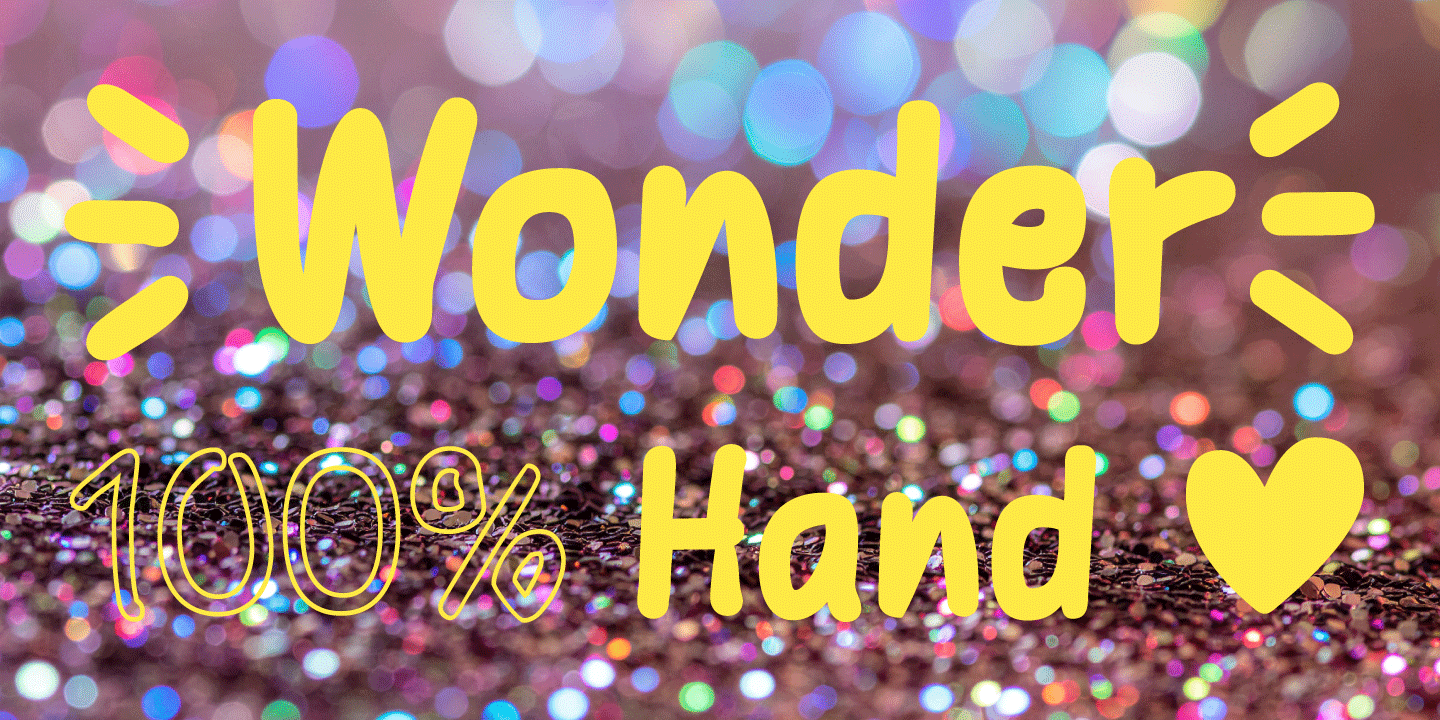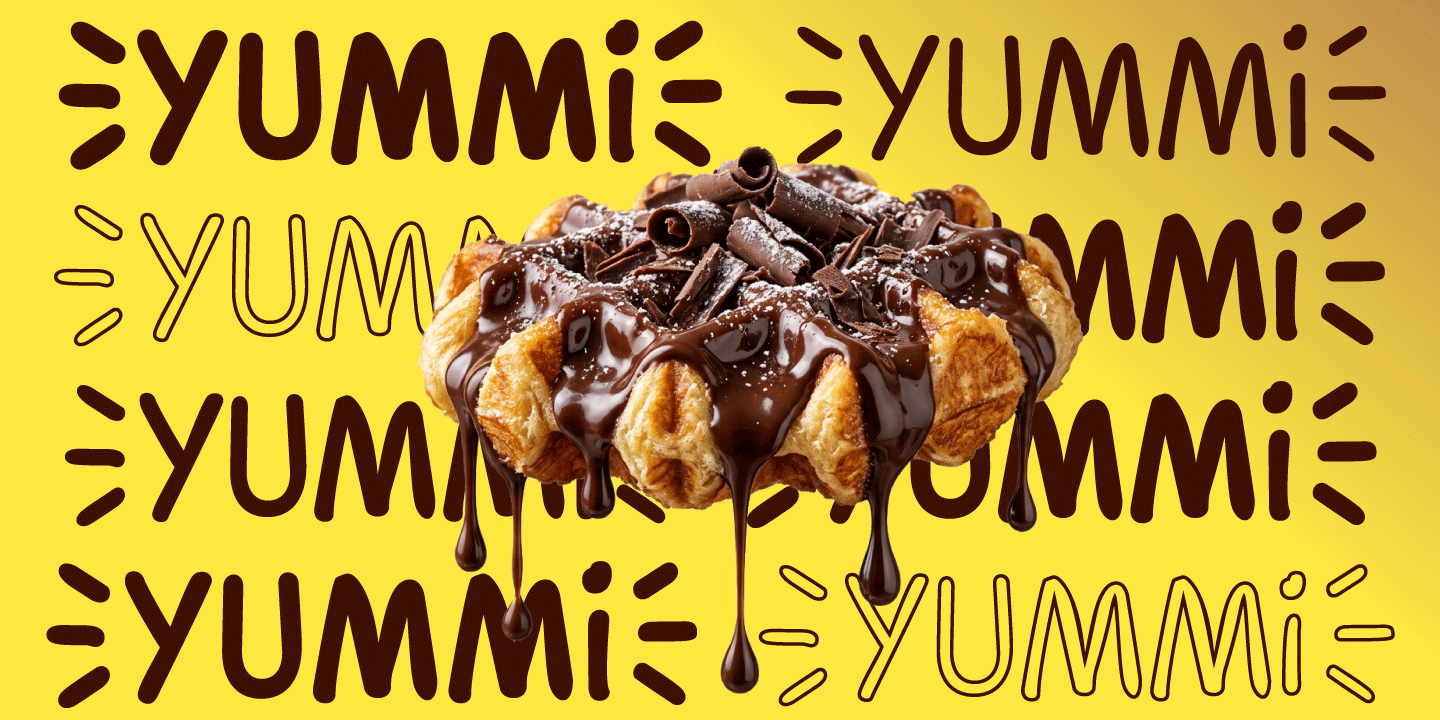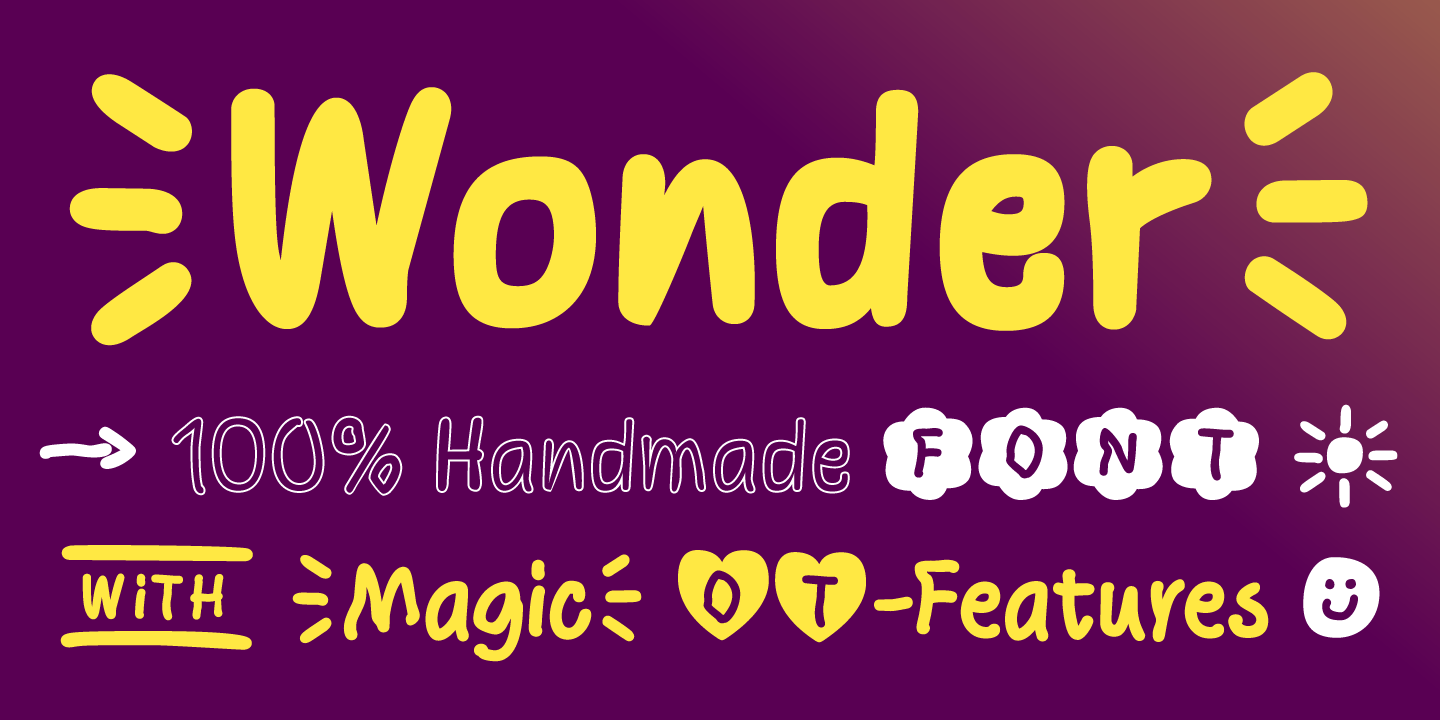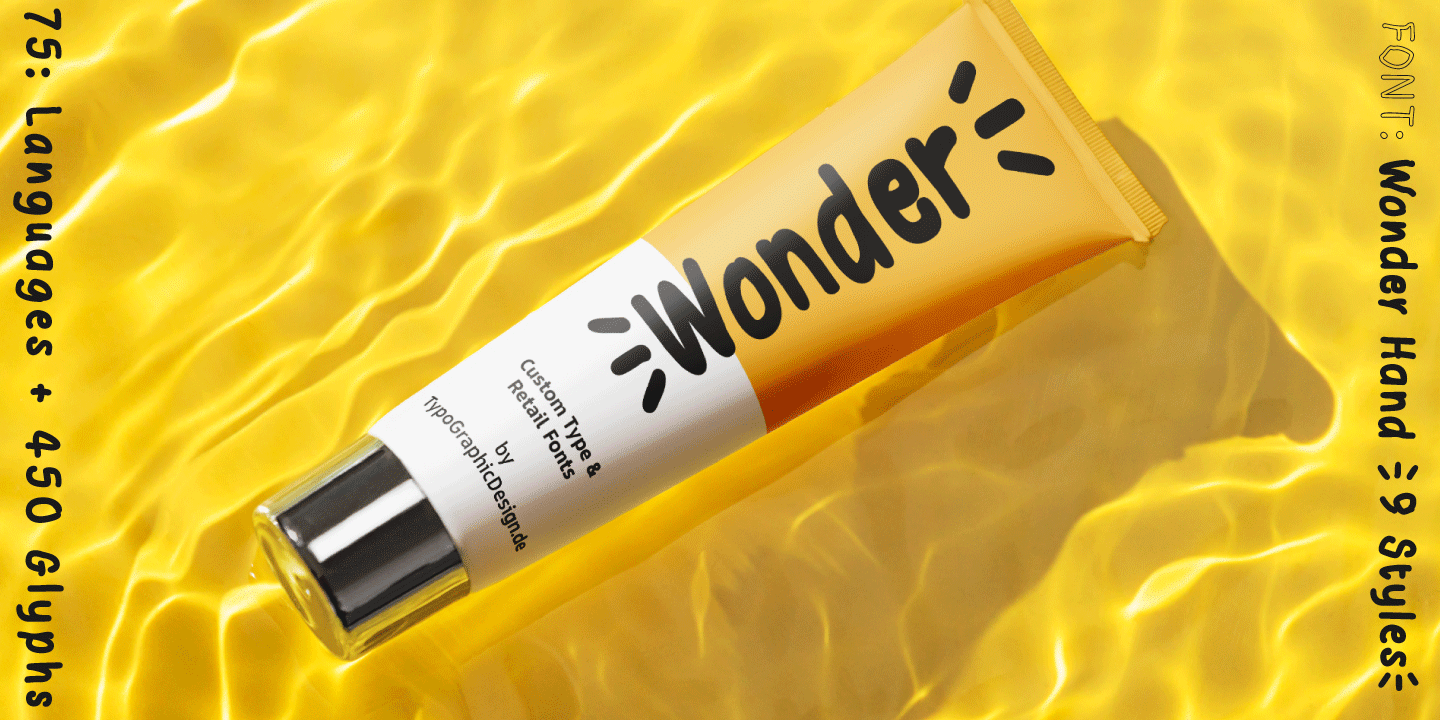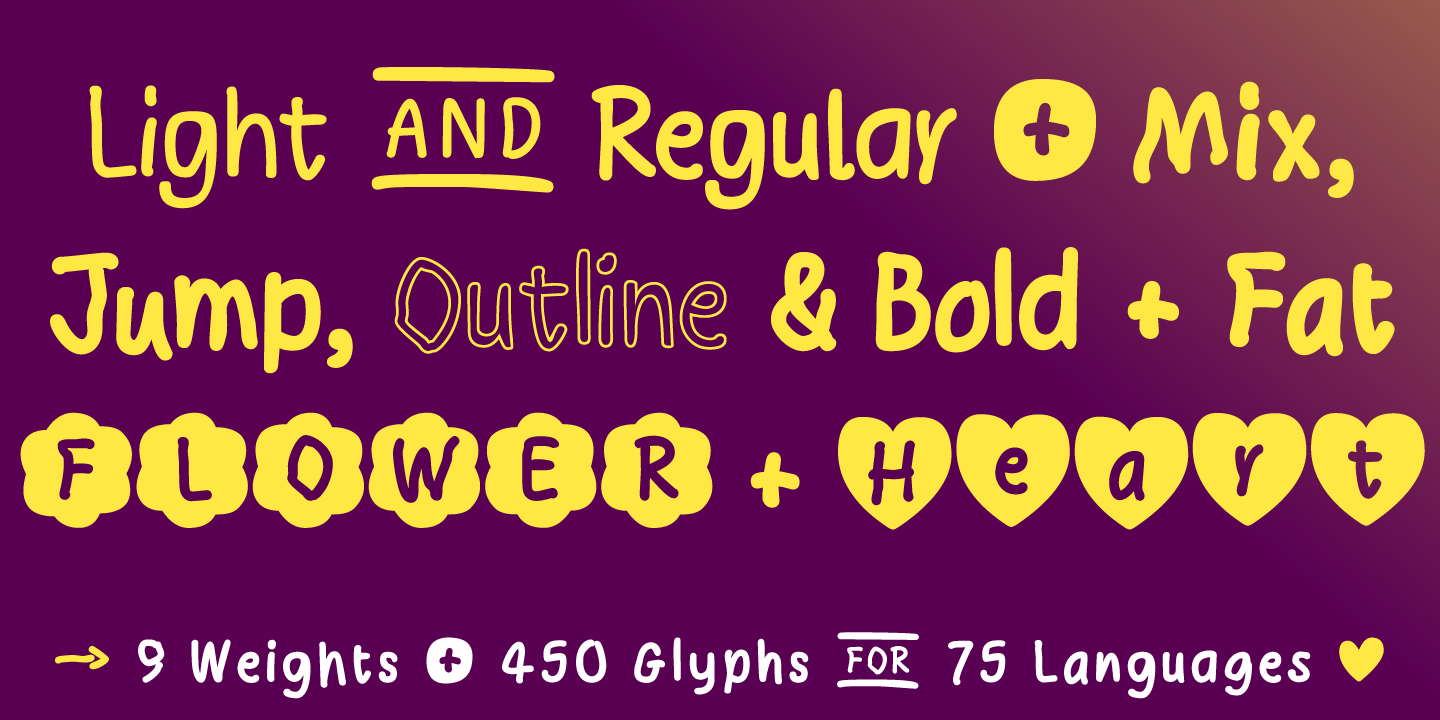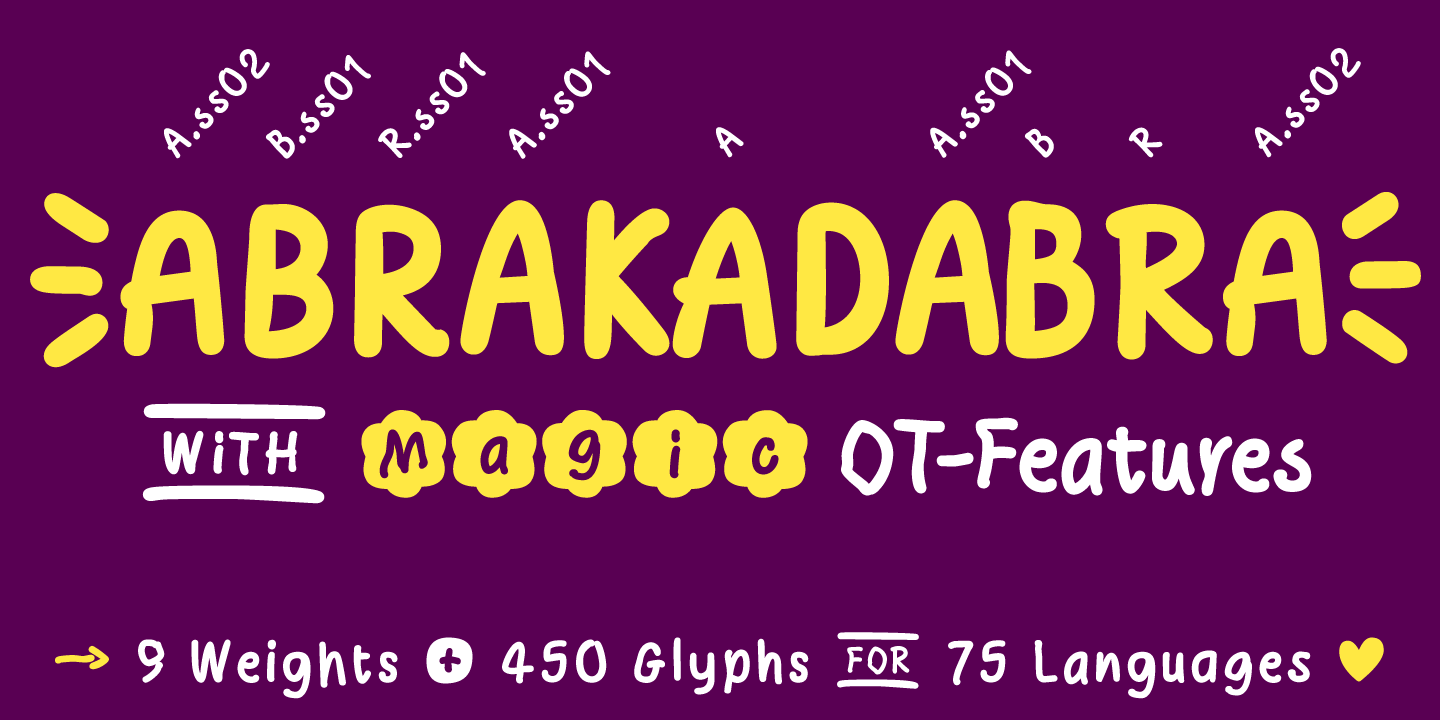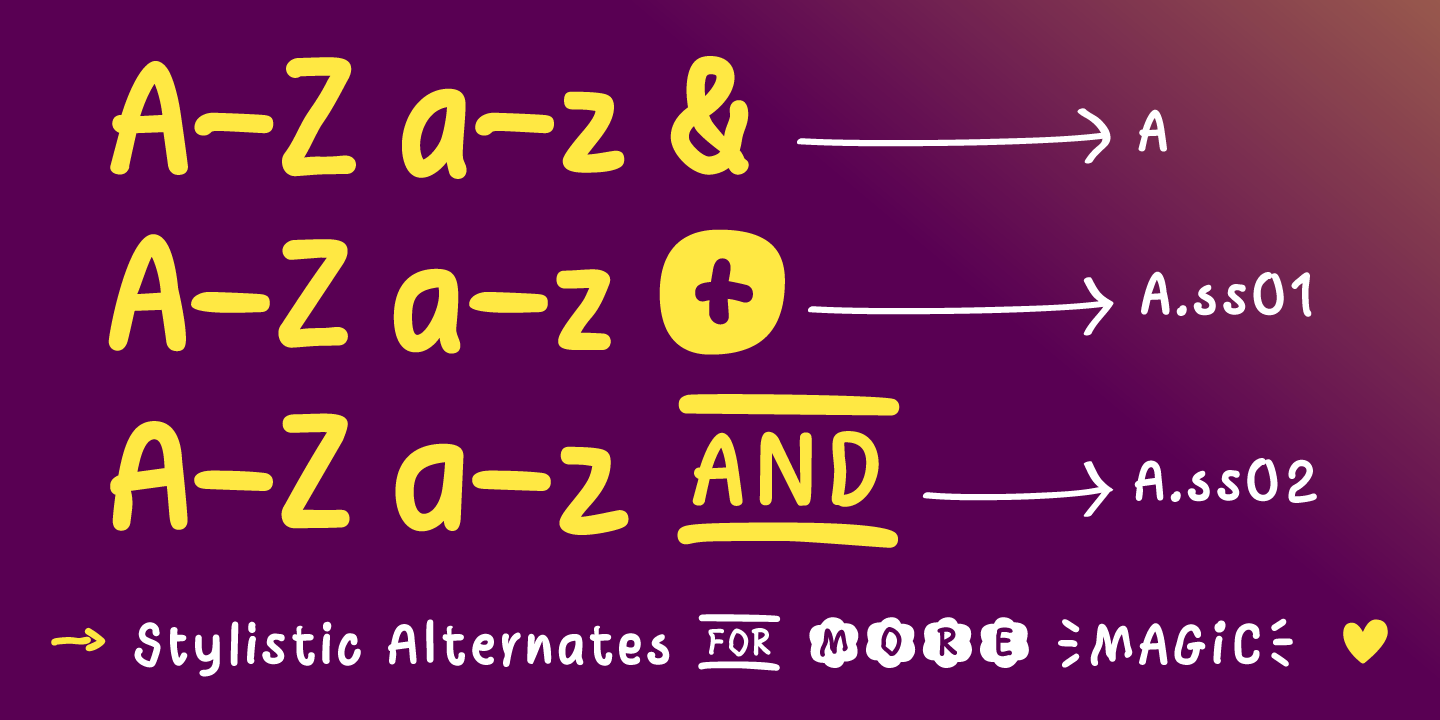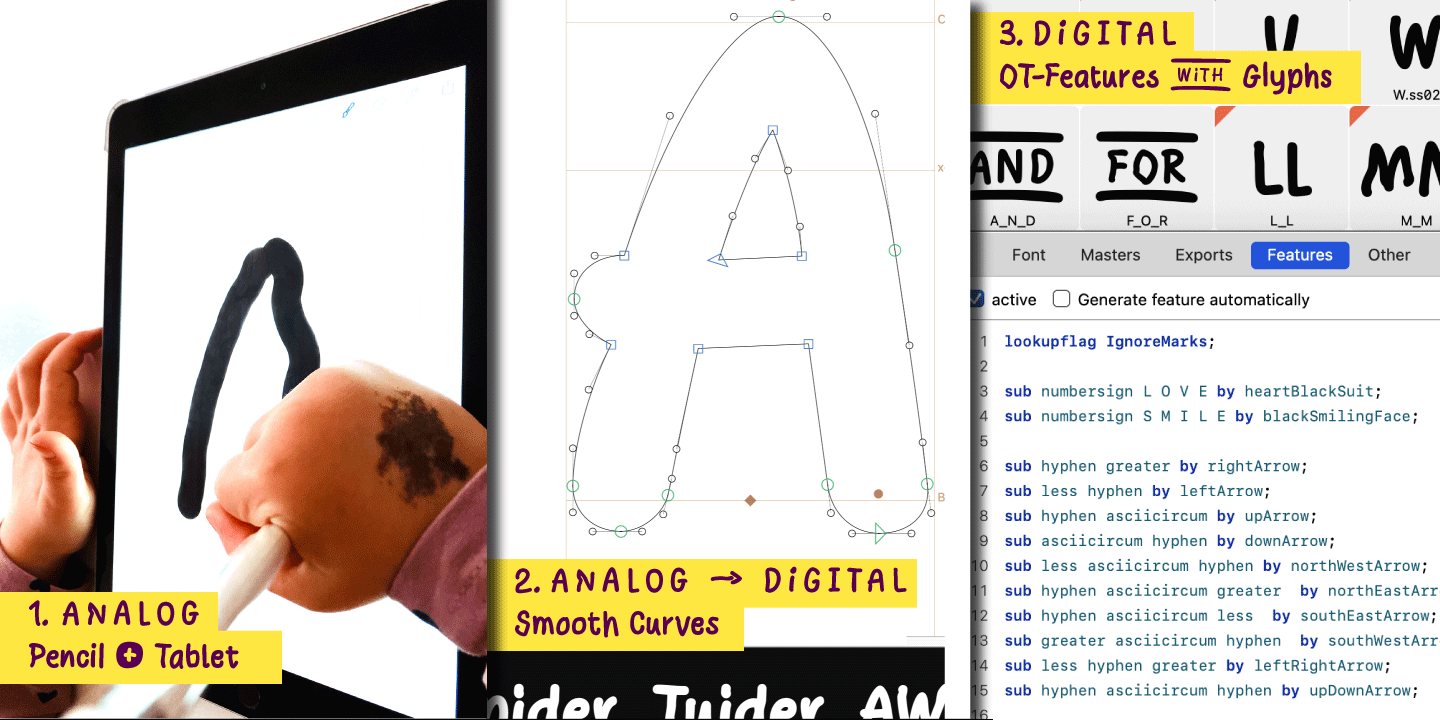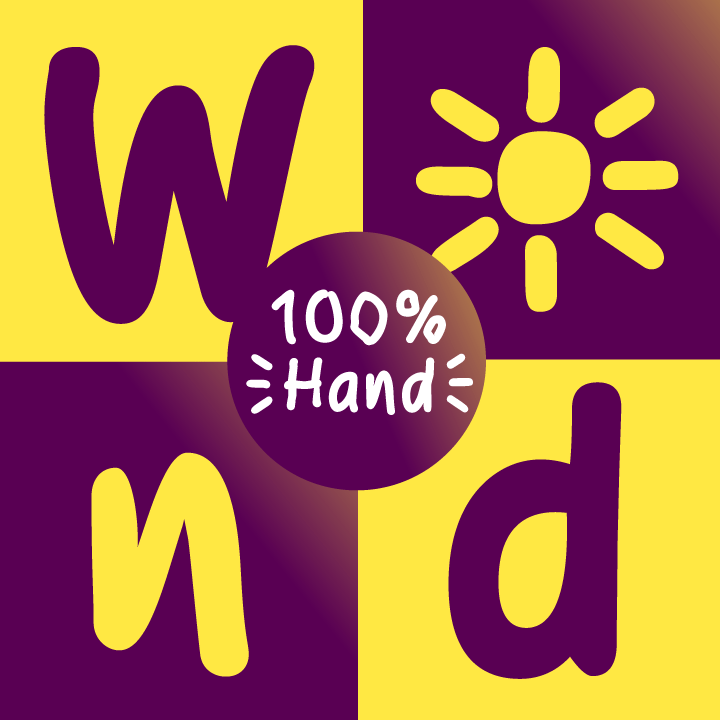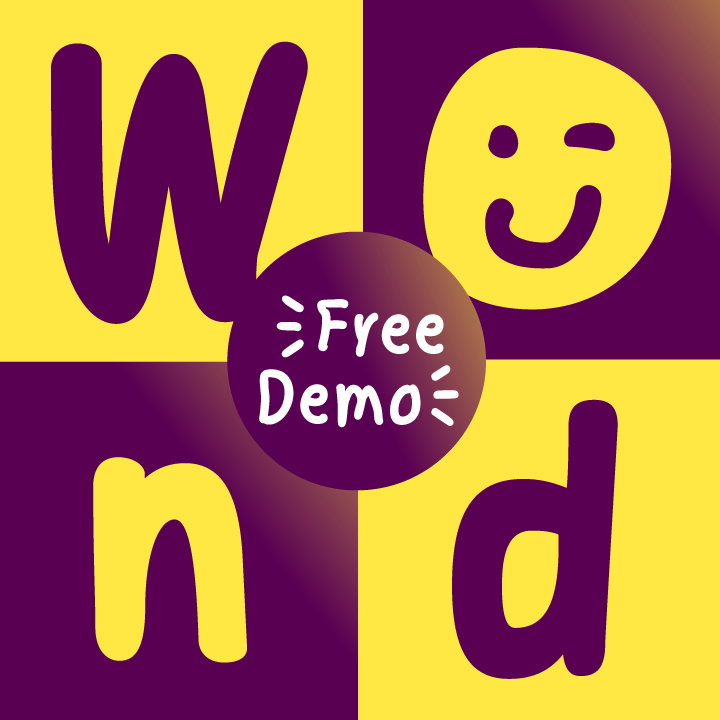
The typeface Wonder Hand Pencil is designed as a 100% handmade Script Font with stylistic alternates for the real authentic handwritten character. The forms are based on a classic sans serif. Hand-drawn lines and playful details give the font a personal and organic feel. Developed in 2026 for the font foundry Typo Graphic Design by Wanda Thiemer and the type designer Manuel Viergutz. Designed with love, pencil and tablet.
9 font-styles (Jump, Mix, Light, Regular, Outline, Bold, Heart, Flower, Fat) with 450 glyphs (Adobe Latin 1) for 75 languages incl. decorative extras like icons, arrows, catch words, dingbats, emojis, symbols, geometric shapes (type the word #LOVE for ❤ as OpenType-Feature dlig) and stylistic alternates (2 stylistic sets). 15 OpenType features.
For use in logos, packaging for drinks & food, magazines, posters, advertisement plus as webfont for decorative headlines. The font works best for display size.
■ Font Name: Wonder Hand
■ Font Styles: 9 font weights (Jump, Mix, Light, Regular, Outline, Bold, Heart, Flower, Fat) + DEMO (with reduced glyph-set)
■ Font Category: Script for headline size
■ Specials: Capital Letter Sharp S (German Versal Eszett U+1E9E) ẞ, Catchwords like FOR, Emojis like Smiley ☺ ☻, Symbols like Heart ♥︎, arrows ➡︎, Geometric Shapes ▲ ⚫️ , Variable Font
■ Design Date: 2026
■ Type Designer: Wanda Thiemer, Manuel Viergutz